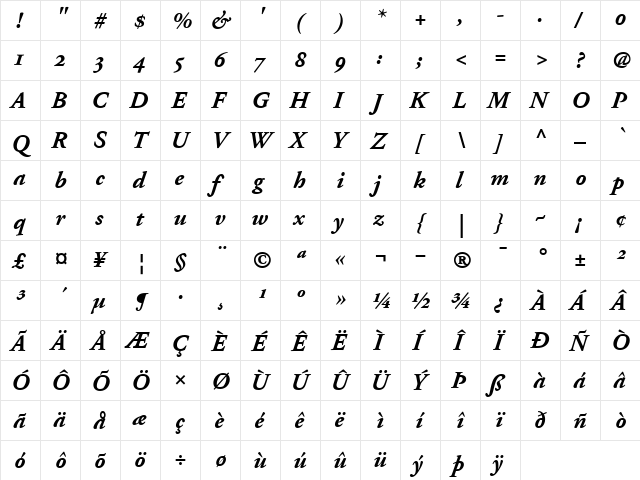
AdobeGaramondOldstyleFigures BoldItalic Font Preview
Design Context for AdobeGaramondOldstyleFigures Typeface
AdobeGaramondOldstyleFigures carries the refined structure of traditional serif typography, with bracketed terminals and considered proportions that communicate credibility and craft. The dynamic lean of this cut emphasises speed and emphasis in any layout. The heavy weight commands attention and anchors typographic hierarchies.
Pro Tip: Set AdobeGaramondOldstyleFigures with slightly loose tracking in headlines to let each letterform's detail read clearly at display sizes.